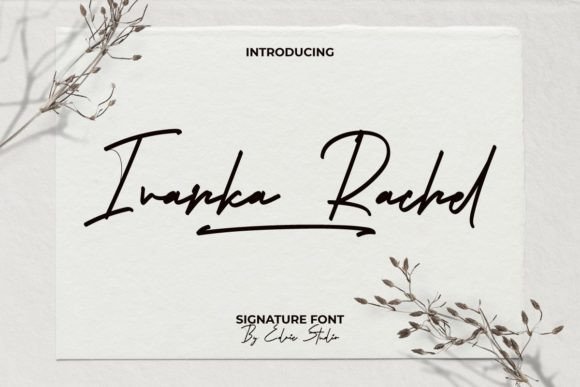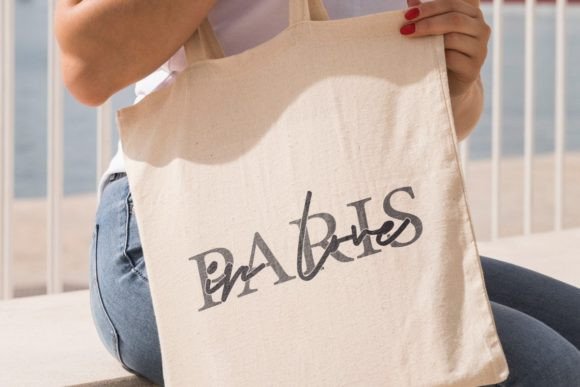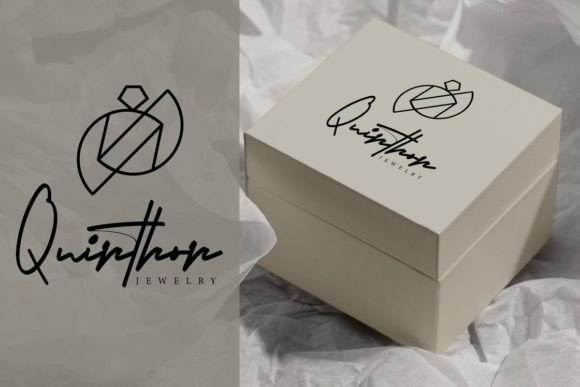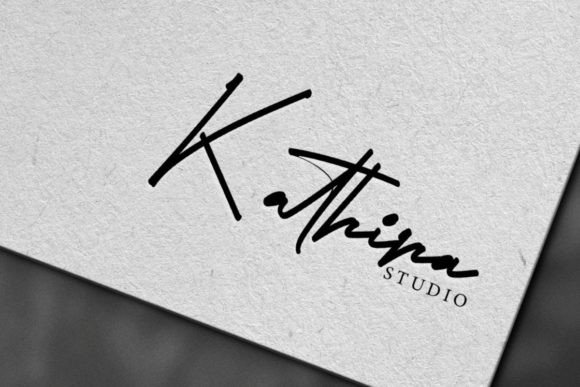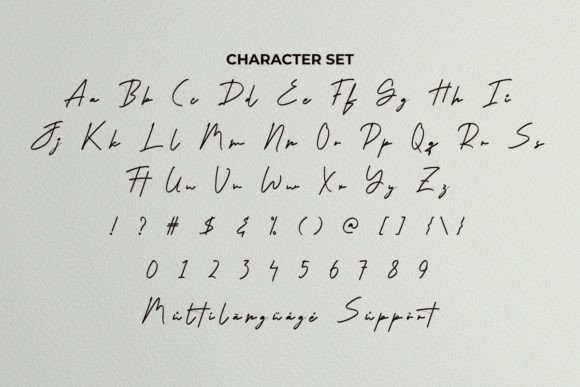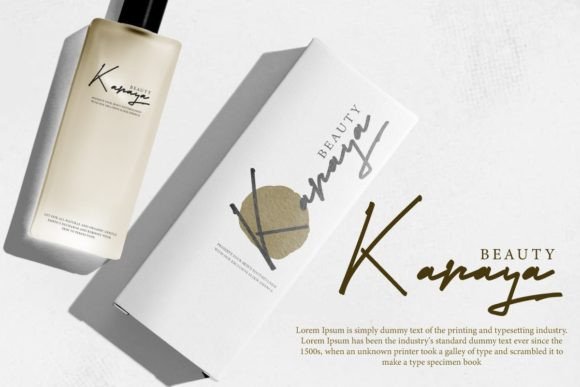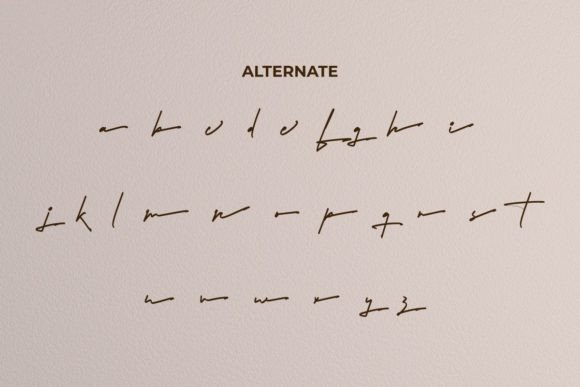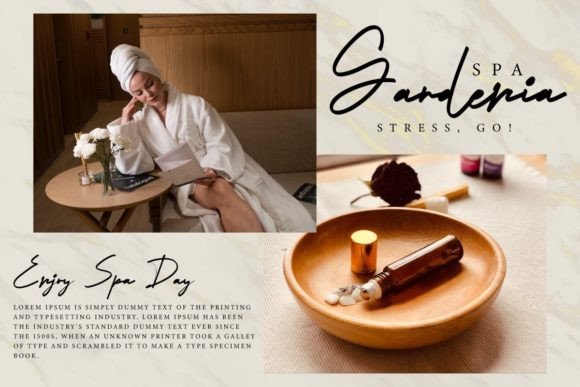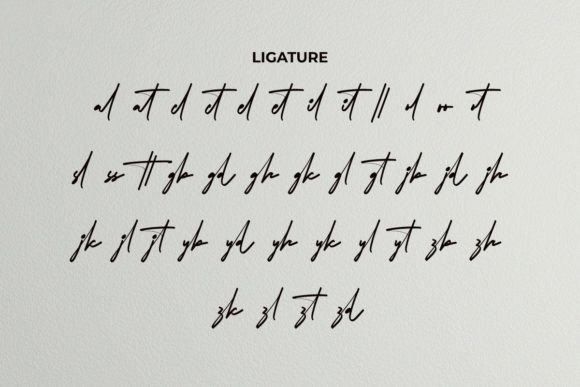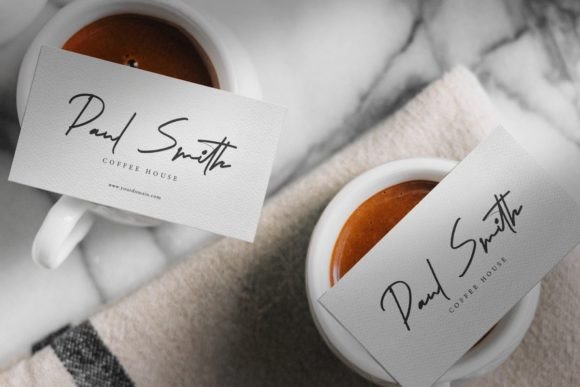
Ivanka Rachel Font
About Ivanka Rachel Font
“Ivanka Rachet: Where Authenticity Meets Elegance in Signature Typography
Introducing Ivanka Rachet, an authentic signature style font that embodies natural flow and elegance. With its effortless strokes and genuine charm, Ivanka Rachet allows you to create a custom personal signature that speaks volumes about your style and sophistication. This font is more than just a typeface; it’s a tool that empowers you to leave your mark with grace and authenticity. Whether you’re in the beauty products industry, business, crafts, jewelry, publishing, printing, culinary, café, hotel, spas, or any field that demands a signature look, Ivanka Rachet becomes your signature of choice, making your designs stand out with a touch of personalized elegance.
The allure of Ivanka Rachet lies in its authentic signature style, where each letter flows naturally as if handwritten with care and intention. Its fluid strokes and elegant curves create a visual harmony that captures the essence of genuine authenticity. Imagine your beauty products adorned with Ivanka Rachet’s signature elegance, adding a layer of sophistication to your brand identity. Picture your business cards featuring your custom personal signature, making a memorable impression on every recipient. With Ivanka Rachet, your designs exude a sense of refinement and genuine charm, leaving a lasting impact on your audience.
One of Ivanka Rachet’s standout features is its versatility. Its authentic signature style makes it suitable for a wide range of industries, from beauty products and crafts to culinary and hospitality. Whether you’re designing logos, packaging, business materials, or promotional items, Ivanka Rachet elevates your designs with its elegant signature look, making them visually captivating and emotionally resonant.
Moreover, Ivanka Rachet is more than just a font; it’s a symbol of individuality and sophistication. Its natural flow and genuine charm resonate with individuals who appreciate the beauty of personalized signatures, making it a favorite among designers and professionals seeking a font that exudes authenticity and elegance. Ivanka Rachet becomes an extension of your identity, allowing you to sign your creations with style and grace, leaving a mark that reflects your unique personality.
In a world where authenticity is valued, Ivanka Rachet helps you make a statement. It speaks the language of genuine elegance, resonating with those who appreciate the beauty of personalized craftsmanship. Whether you’re designing for branding, business materials, or any creative endeavor, Ivanka Rachet becomes your trusted signature font, guiding you toward design excellence.
So, why settle for a standard signature when you can embrace the elegance of Ivanka Rachet? Let this authentic signature style font be the canvas for your personalized expressions, and watch as your designs come to life with natural flow, grace, and sophistication. Let your creativity flow, and let Ivanka Rachet be the brushstroke that signs your ideas into visually captivating masterpieces, leaving a lasting impression on the hearts of your audience. Access all the exquisite glyphs and swashes with ease, and let your signature become a work of art with Ivanka Rachet.”